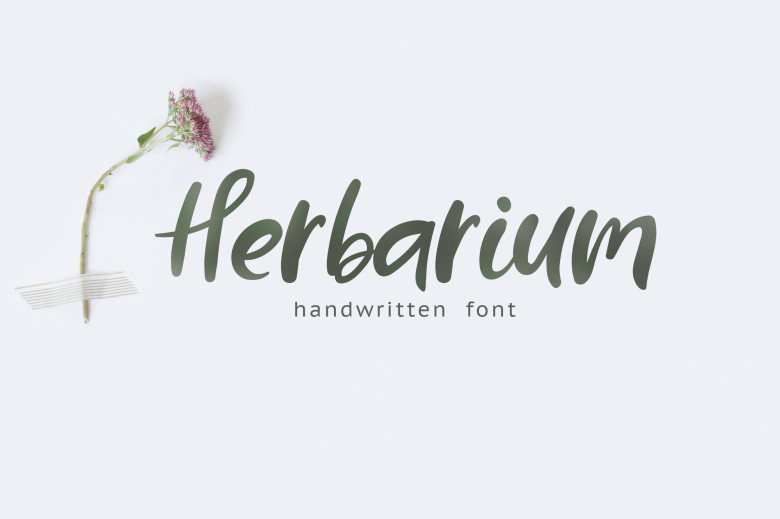
Herbarium font.
I’m pleased to introduce my handwritten font Herbarium.
This font includes 30 ligatures and full set of lowercase alternates to make your text more realistic. It is perfect for branding, wedding invites and cards, headings, signatures, product packaging, quotes, greeting cards, logos, overlays and much more.
In addition to English, Herbarium supports main European Languages.
Herbarium comes with Extra style, which consists of 56 hand drawn flowers and leaves.